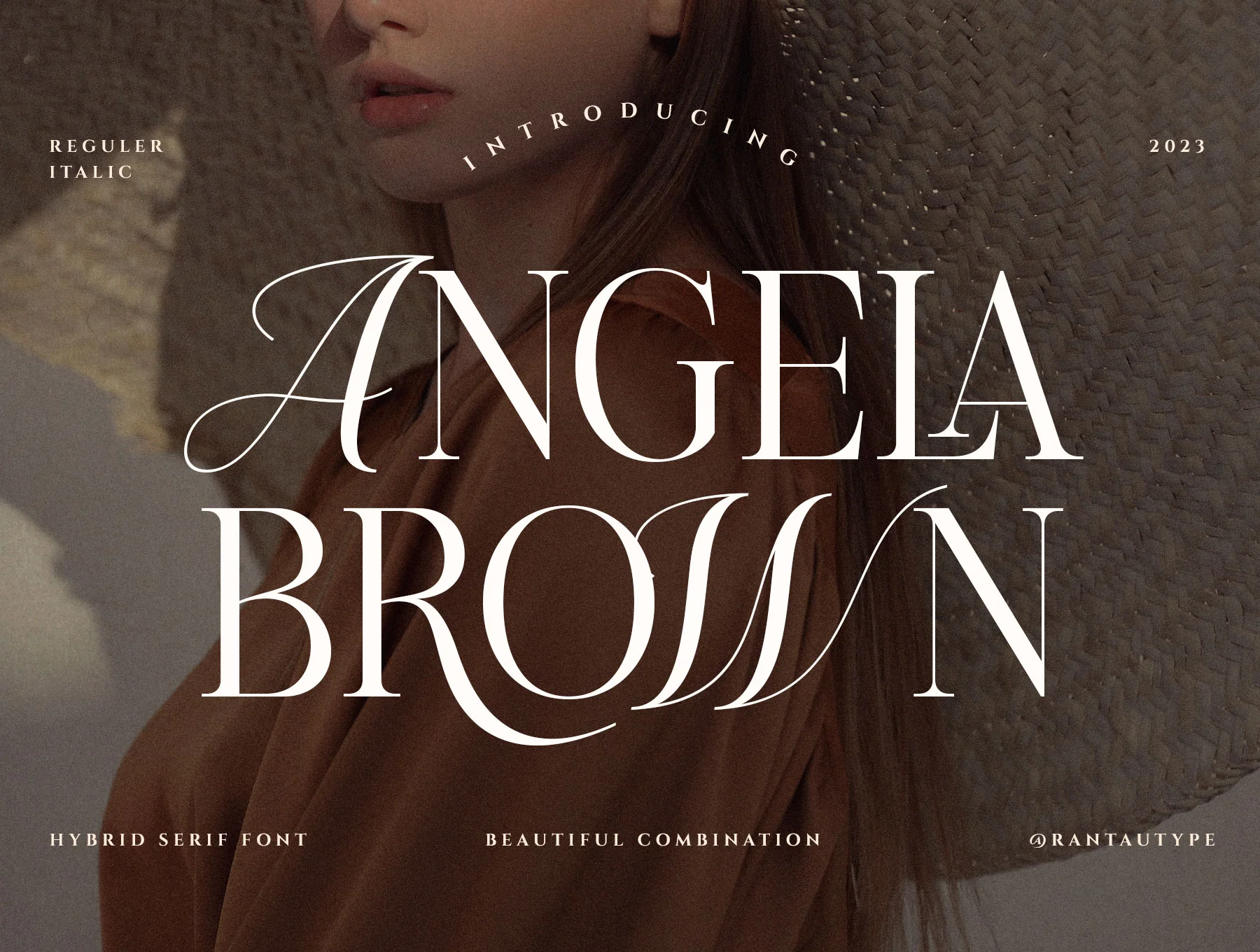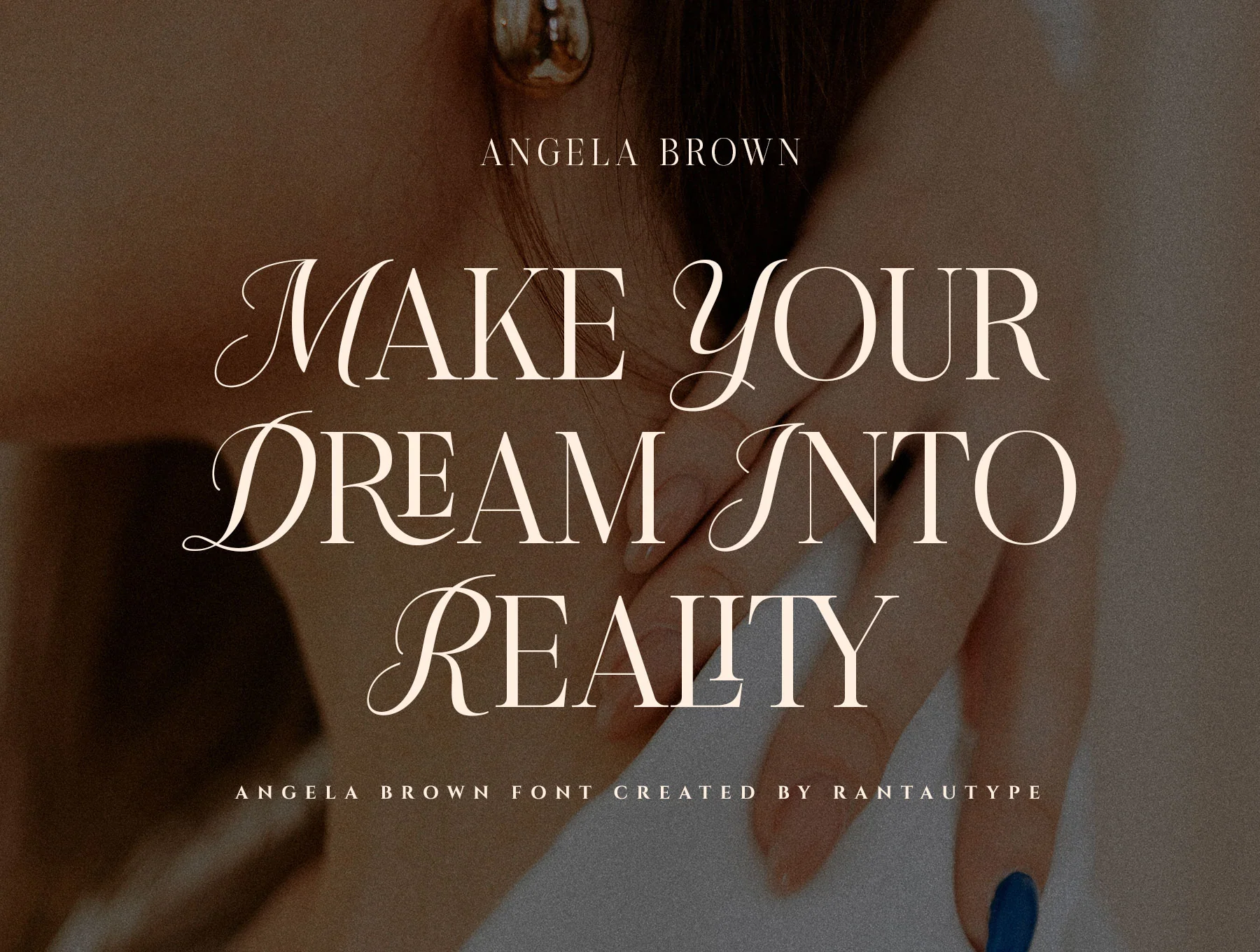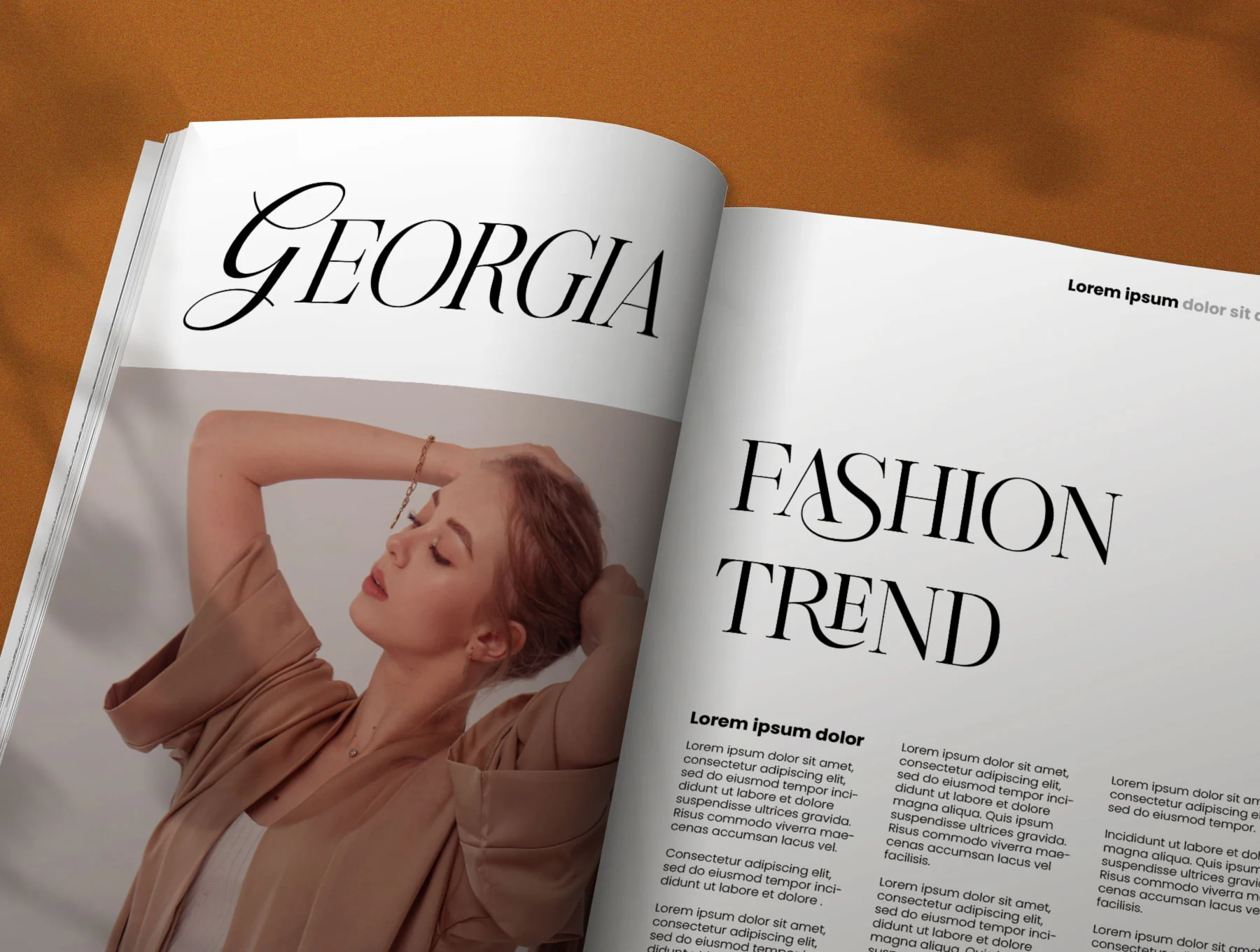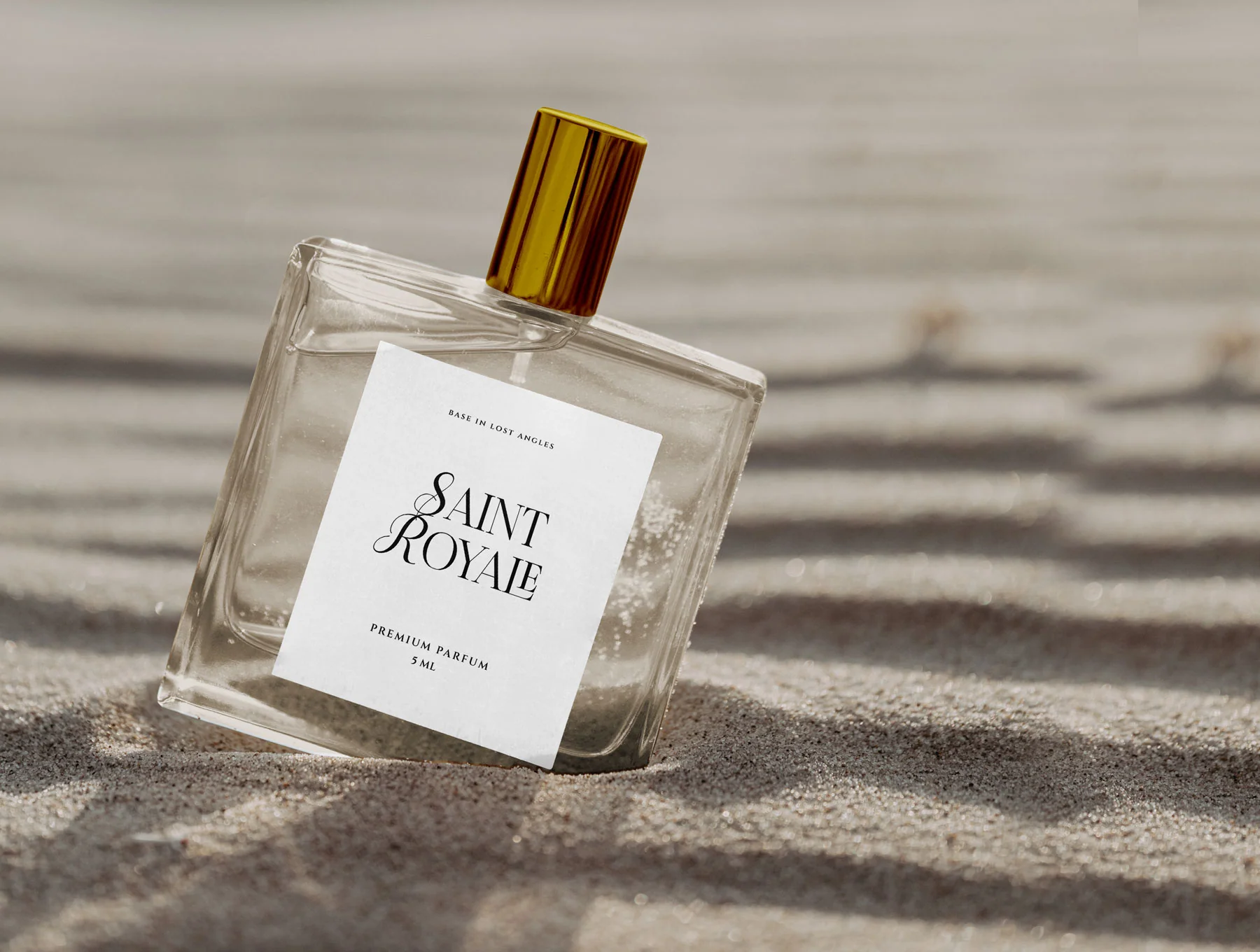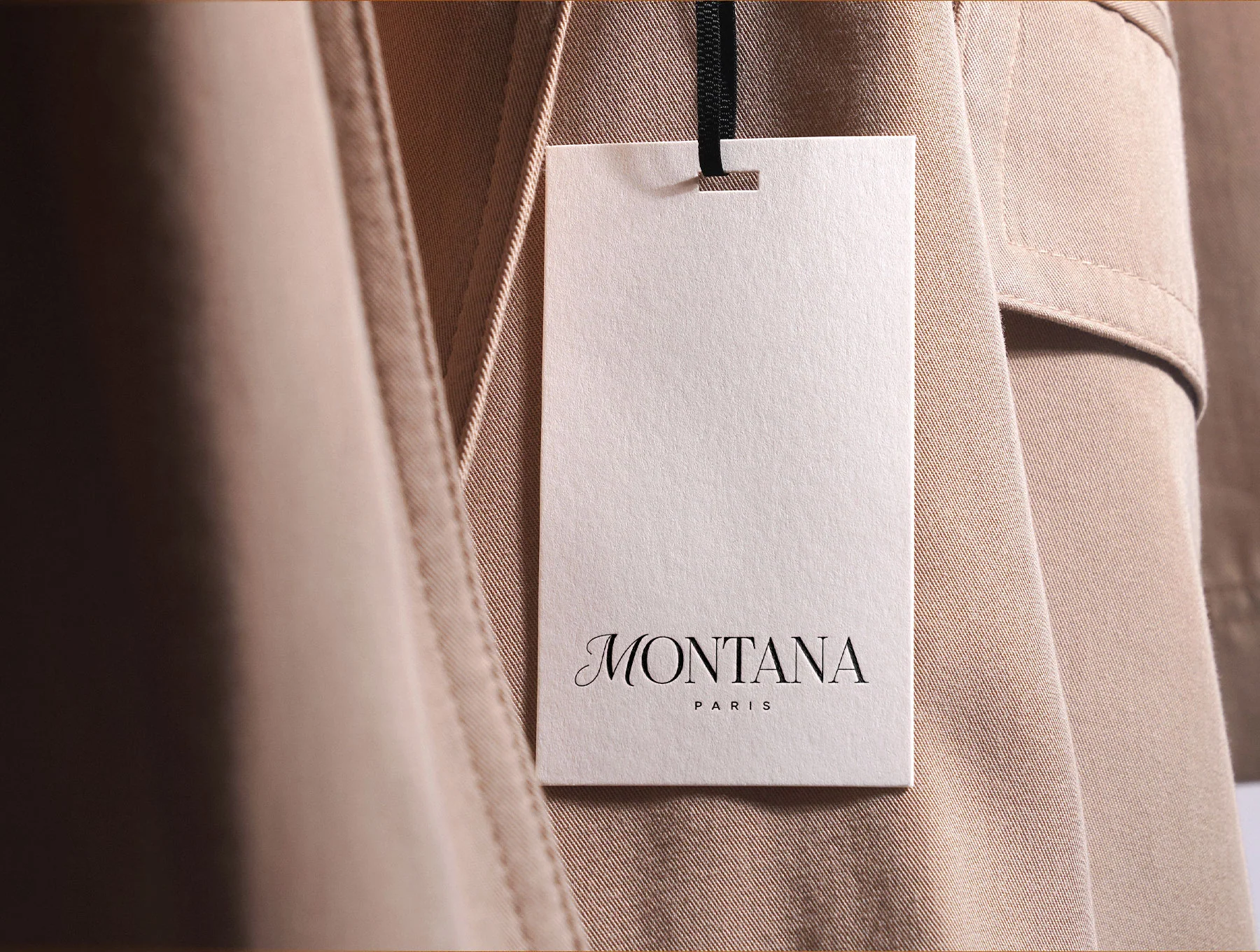
Angela Brown Script Serif Font
Angela Brown serif typeface with script style
Ligatures with alternate characters
Angela Brown blends graceful calligraphic strokes with a modern serif style for a polished vintage feel. Perfect for headlines, logos, branding, packaging, ads, editorials, websites, social posts, quotes, and wedding designs. Includes regular/italic OTF, TTF, and WOFF files with upper/lowercase letters, numbers, symbols, ligatures, alternates, broad language coverage, and PC/Mac compatibility.